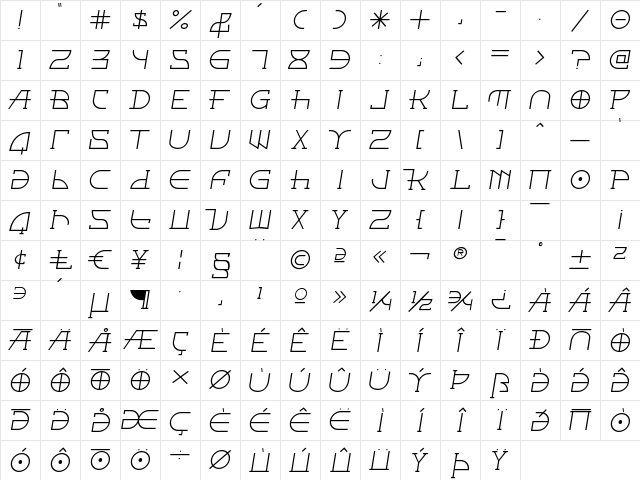
Fontcop II Regular
Designer: Apostrophe (') and Alejandro Paul.
Design Context for Fontcop II
Fontcop II is a composed and adaptable typeface that performs quietly and consistently across a wide range of design contexts.